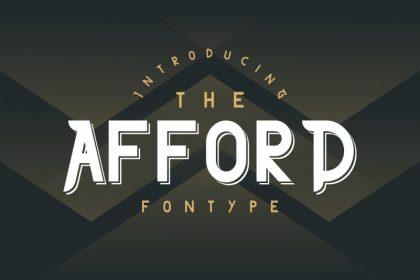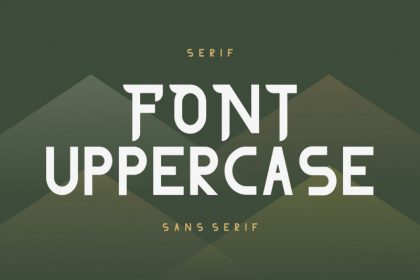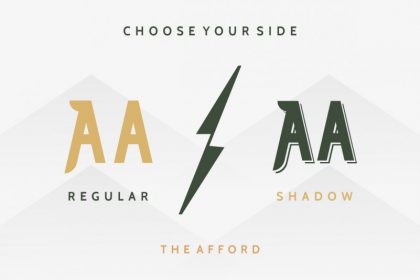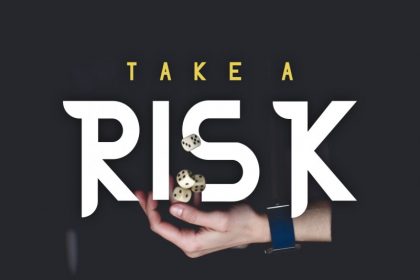
Hi Everyone! Please meet our newest font : The Afford Display Font! This is a new serif display font family with 3 styles : Regular, Alt and shadow.
The concept is making a “creepy”, “Mystic” font but in a modern way. It will be great for branding, logotype, stationery, business card, signage, flyer, brochure, paper etc. There are many industries that is suitable for this font : musician, entertainment, band, museum, education, kids, teenager, kindergarten etc